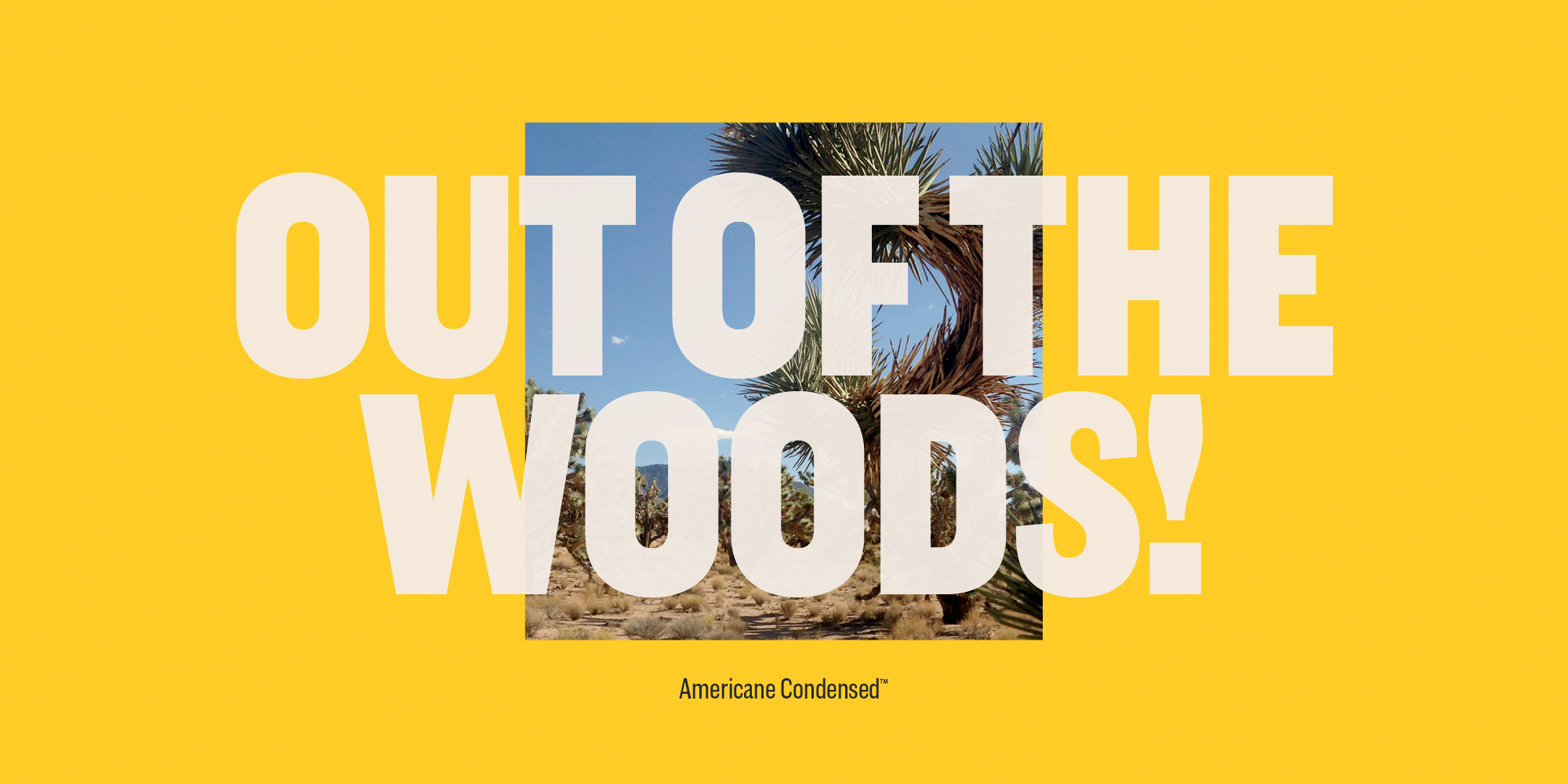
Americane Condensed Font is perfect for classic diner signage, vintage Americana posters, retro automotive advertising, patriotic event materials, traditional barbershop branding, nostalgic sports team merchandise, All-American restaurant menus, and authentic mid-century design projects.
This font is exciting because it captures the bold spirit and optimistic energy of classic American design with condensed letterforms that embody the confidence and can-do attitude of American culture. The Americane Condensed Font represents the essence of American heritage and entrepreneurial spirit, transforming ordinary text into powerful statements that celebrate the timeless values and cultural traditions that define the American experience.
The Americane Condensed Font family includes patriotic variations such as Regular, Bold, Light, Vintage, Italic, Classic, Extended, and Heritage versions, providing American-themed designers with comprehensive tools to create authentic typography that honors American cultural heritage and celebrates the entrepreneurial spirit across all patriotic applications.
Celebrate American heritage with Americane Condensed Font Free Download that brings authentic Americana spirit to every patriotic design project. This boldly crafted typeface combines classic American aesthetics with contemporary functionality, making it perfect for businesses celebrating American values, heritage brands, and organizations honoring traditional American culture and entrepreneurial excellence. The font's confident character design ensures your message feels authentically American while maintaining excellent readability across all patriotic applications. Whether you're developing All-American brand identities, creating vintage-inspired marketing materials, or designing communications that celebrate American heritage, Americane Condensed Font delivers the patriotic typography that resonates with audiences who appreciate American values and cultural traditions. Its versatile design works powerfully across digital and print media while preserving the confident spirit that makes American communications feel genuinely patriotic and worthy of the entrepreneurial energy and cultural optimism that define the American dream and national character.